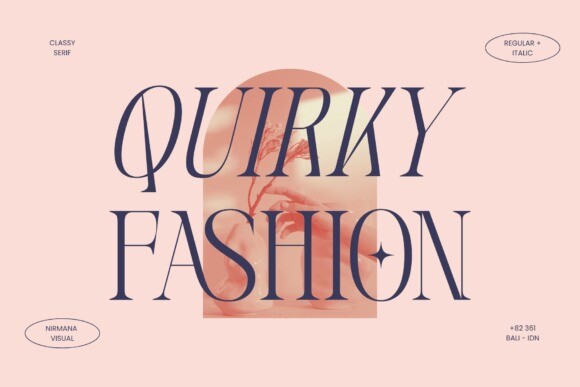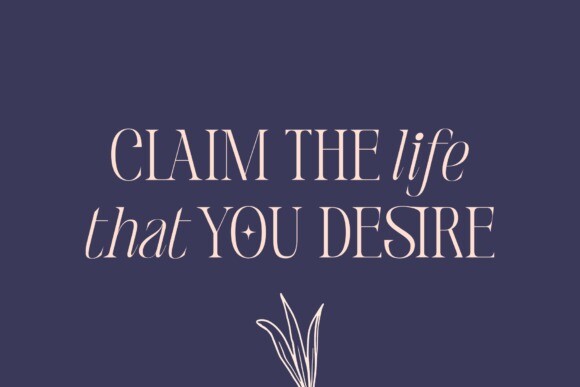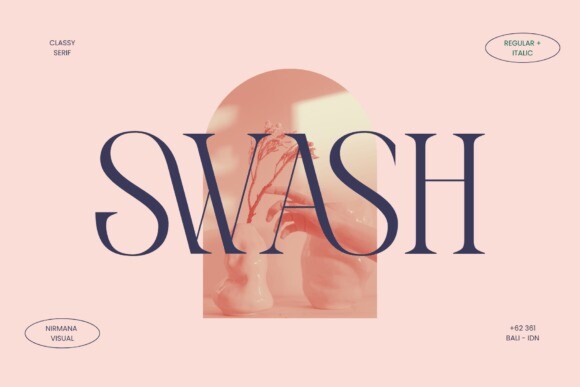
Quirky Fashion Font
Quirky Fashion is a stylish and distinctive serif font that blends classic elegance with contemporary design. Its unique letterforms feature sharp angles and curves, giving it a bold and sophisticated look. Perfect for high-end branding, editorial design, and any project that requires a touch of refined style.